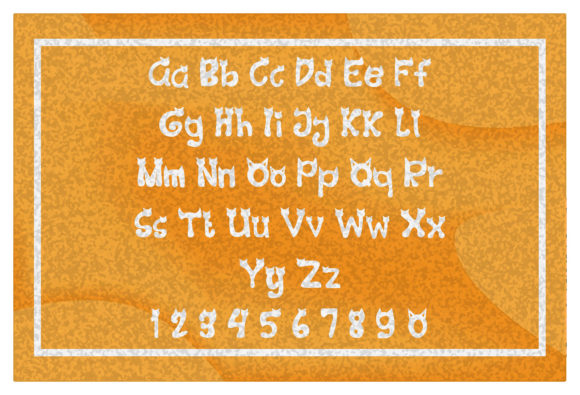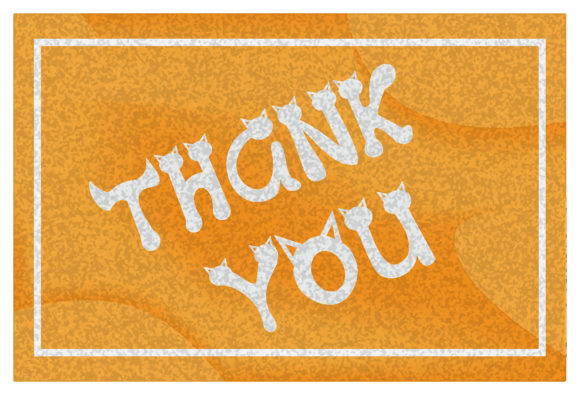
Introduction to Miiyauw Font Font
Fonts play a crucial role in design, and the Miiyauw Font font is a typeface that brings both character and versatility to any project. Whether you’re working on a branding project, a website, or a print design, the Miiyauw Font font offers a unique style that can elevate your work.
| 📌 Font Name | Miiyauw Font |
| 👤 Author | Mahesa Design |
Miiyauw is a sweet and unique display font.
It will add an incredibly joyful touch to your designs Add this beautiful display font to each of your creative ideas and notice how it makes them stand out.
Key Features of Miiyauw Font Font
Why Choose Miiyauw Font Font?
The Miiyauw Font font is more than just a typeface – it’s a design tool that helps you communicate your message with style and clarity. Its unique character set and versatile design make it suitable for a wide range of applications, from elegant invitations to bold headlines.
With its carefully crafted letterforms and balanced proportions, the Miiyauw Font font ensures readability and visual appeal across all mediums.
What makes Miiyauw Font font special?
The Miiyauw Font font stands out with its unique design, exceptional readability, and versatility across various design applications.